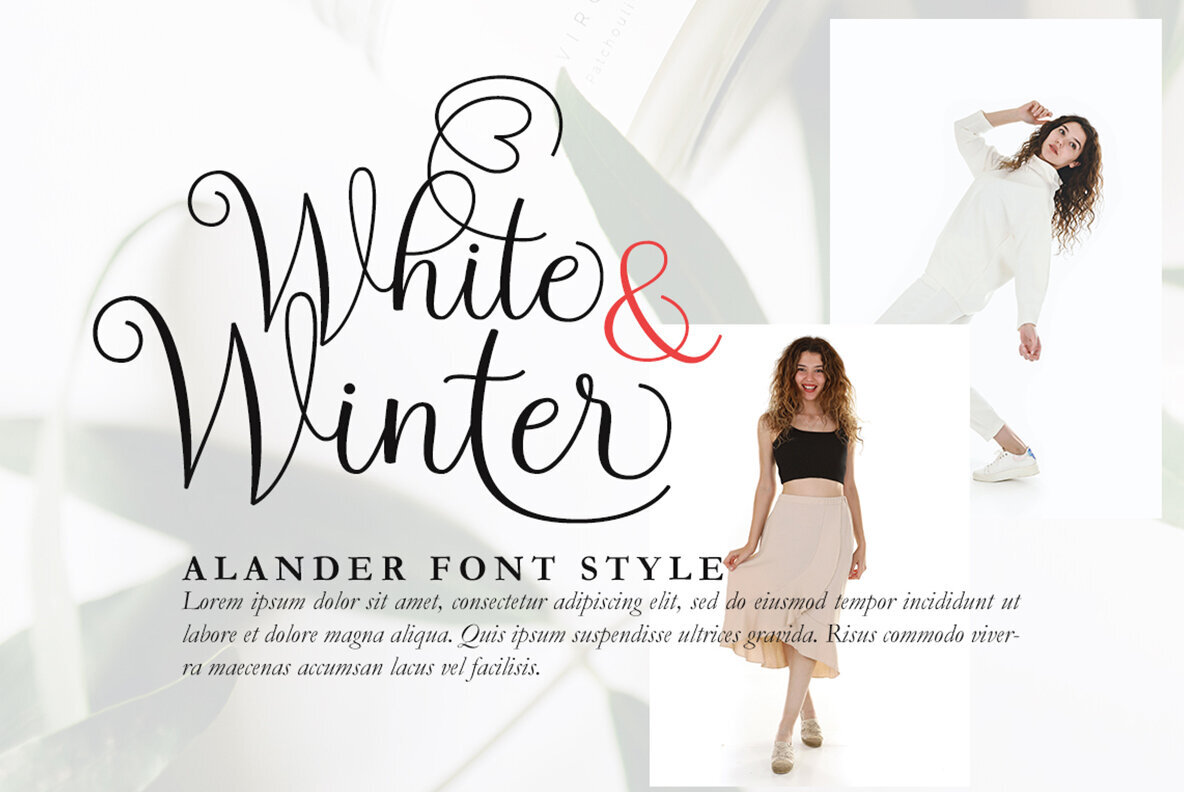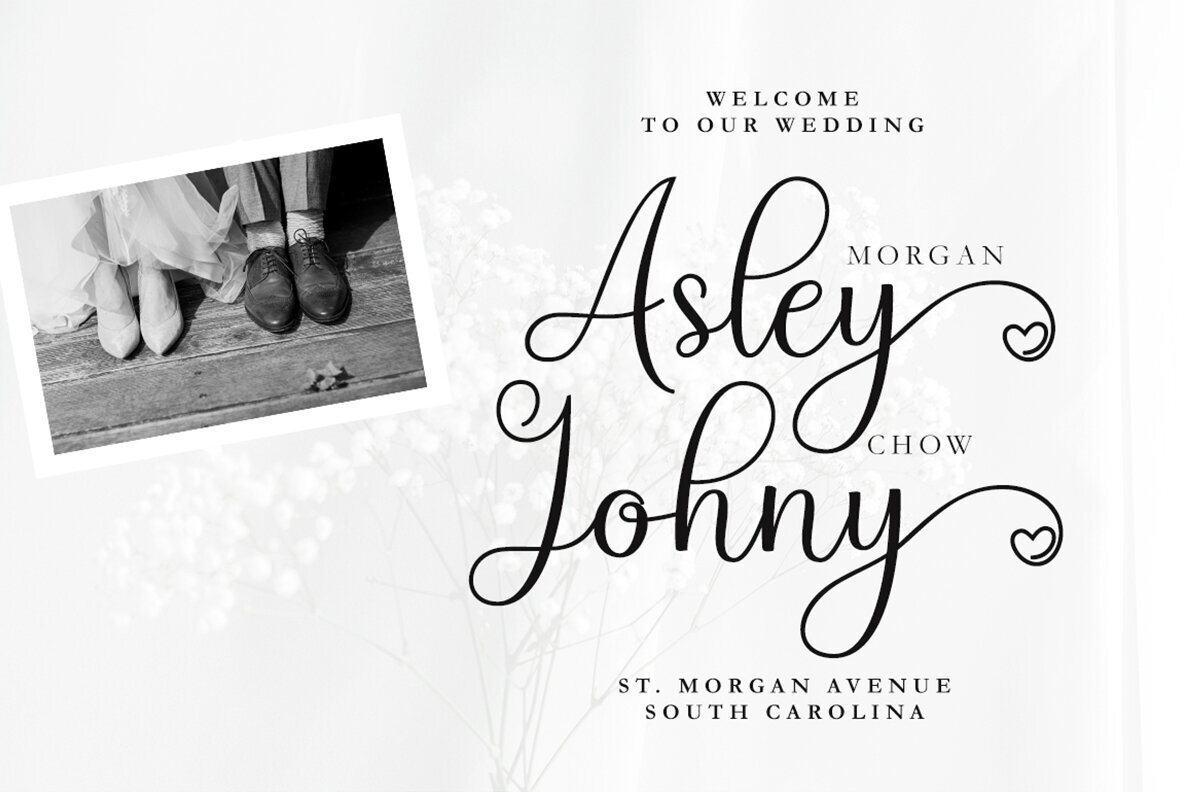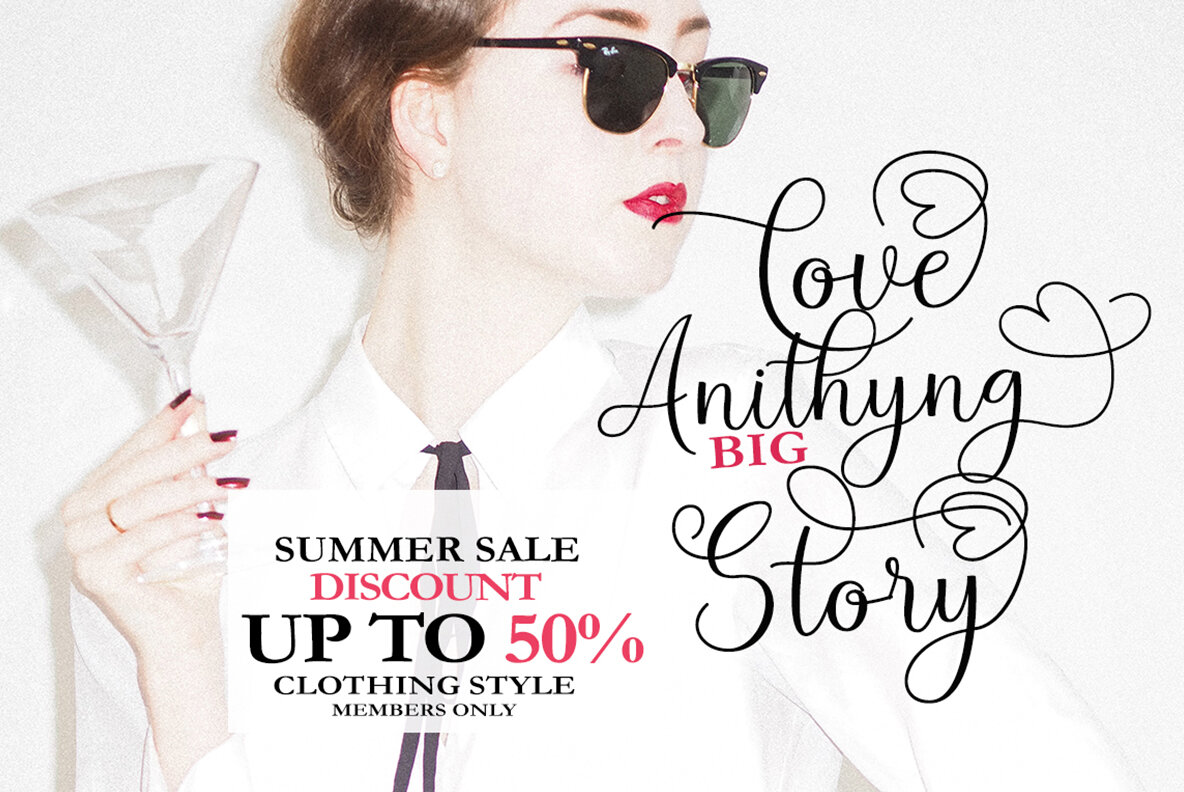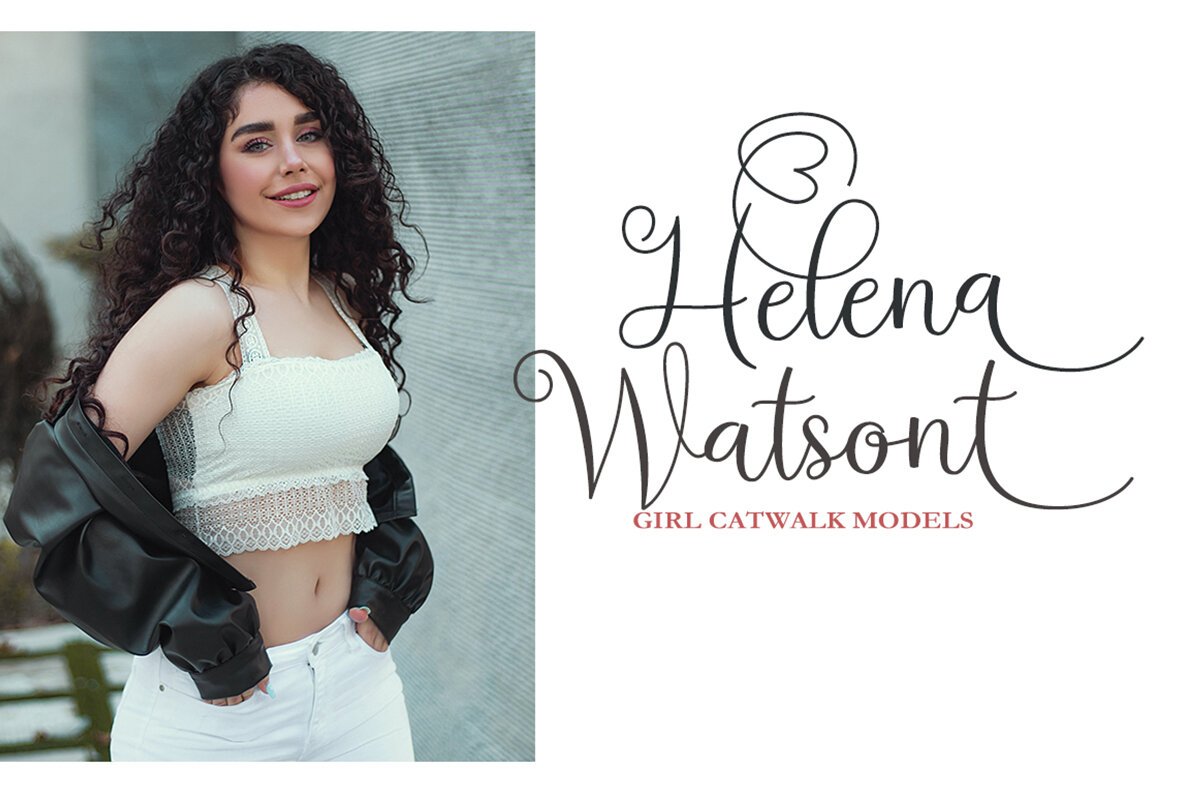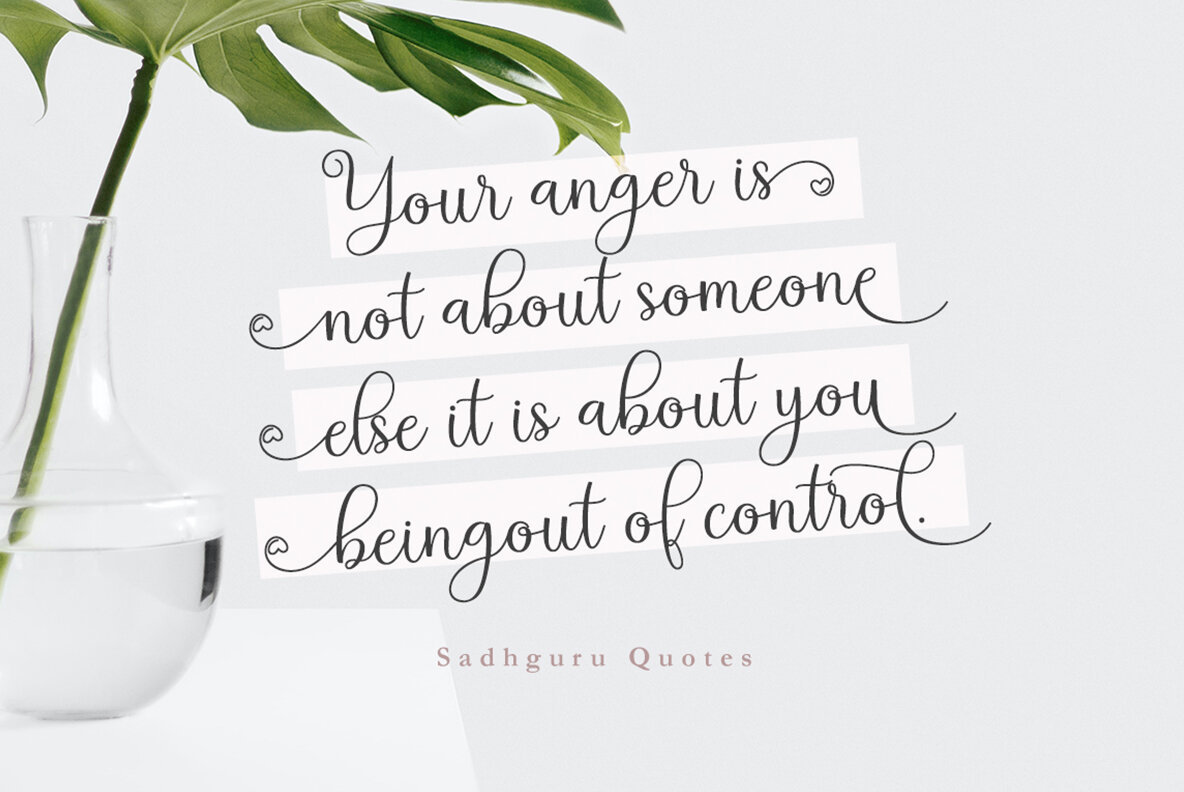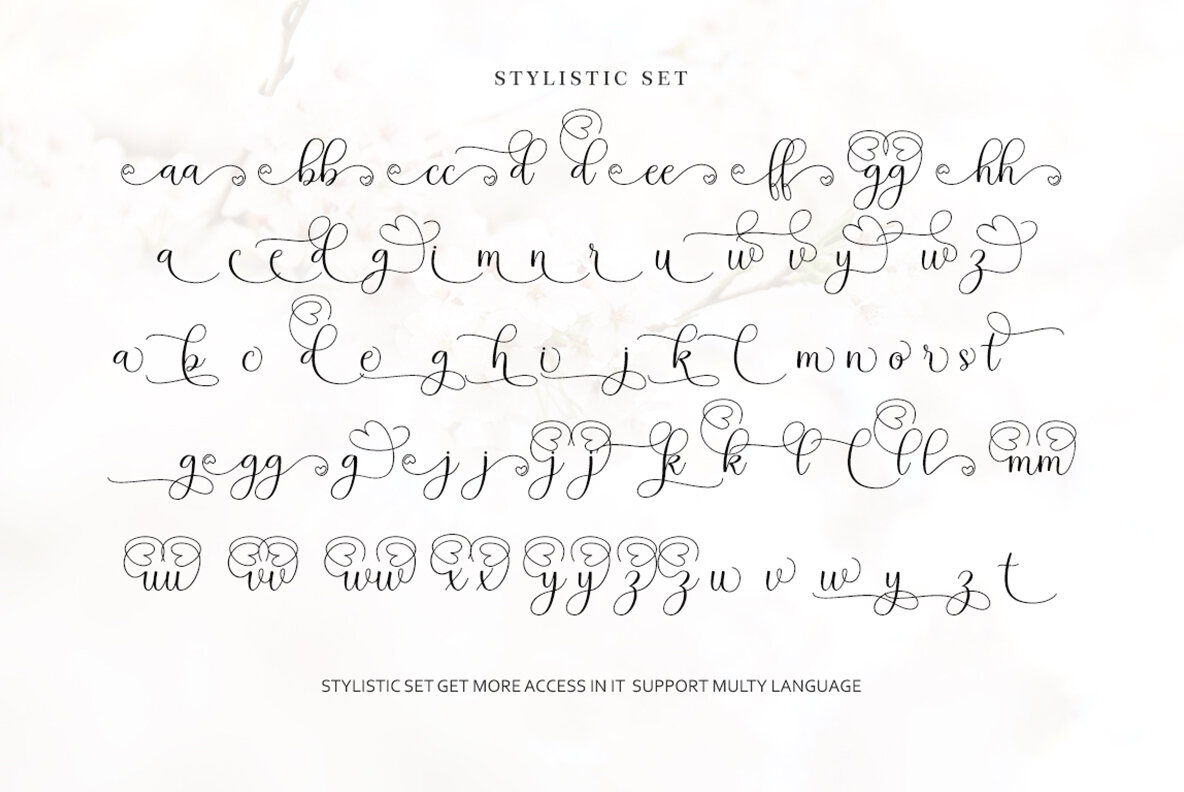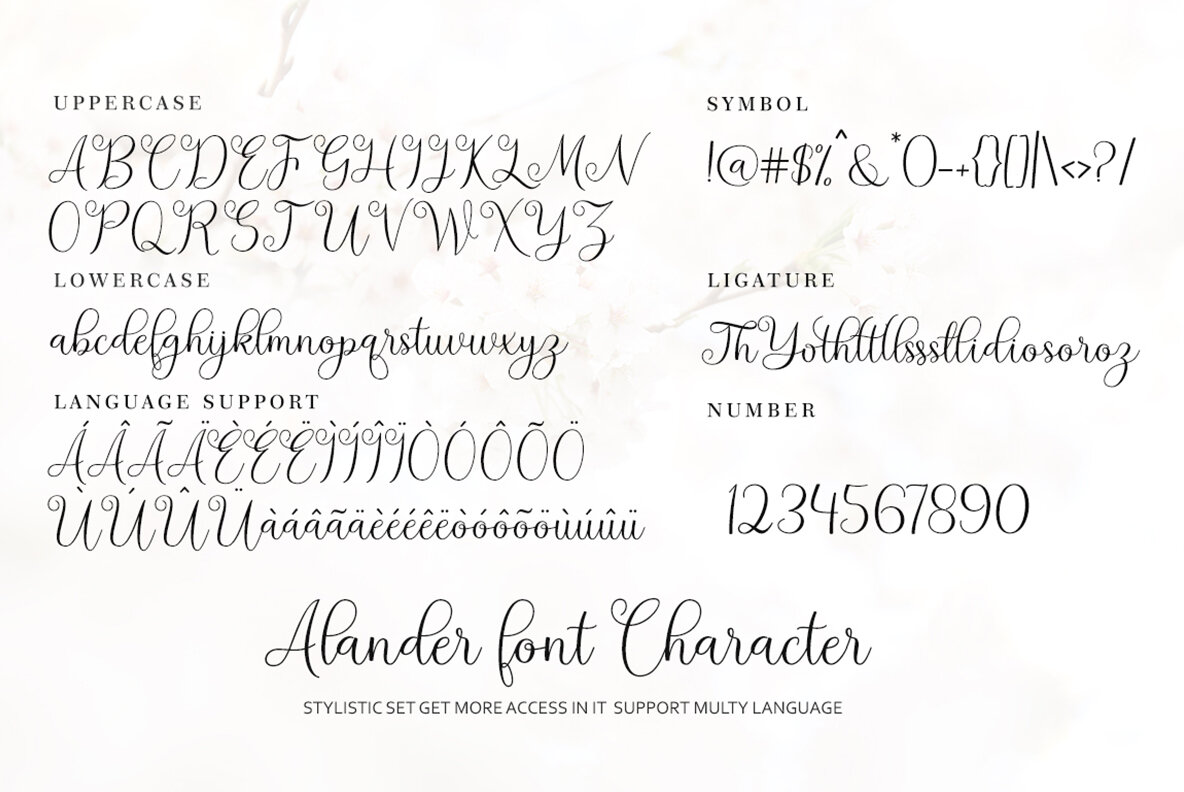
Alander Font
Alander Regular
Alander script is perfect for creating text-based logos and providing a unique identity for your product. With various alternatives and fasteners, it offers customization options that enhance your brand's uniqueness. Use it as a headline for catalogs, zines, magazines, and any publication that requires a touch of modern sophistication. To access the alternative glyphs, use a program that supports OpenType features, such as Adobe Illustrator CS, Adobe InDesign, or Photoshop. This allows you to fully explore the font's versatility and customize it according to your design needs.Alander Script: Versatile and Elegant Typeface for Modern Designs
Features of Alander Script
Accessing Alternative Glyphs